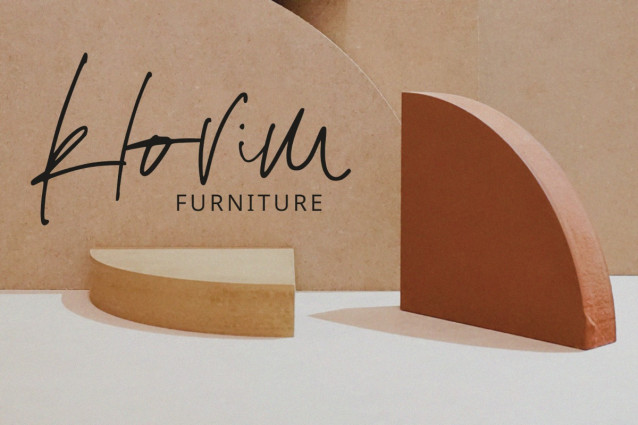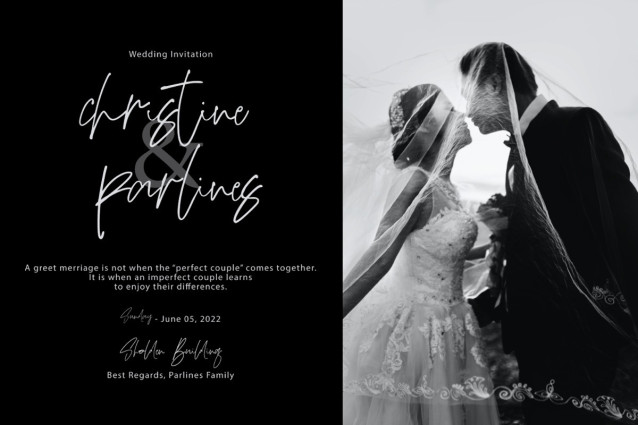
Adustine Signature Font
Adustine Signature Font with a handmade Signature style, decorative characters and a dancing baseline! So beautiful on invitation like greeting cards, branding materials, business cards, quotes, posters, and more!!